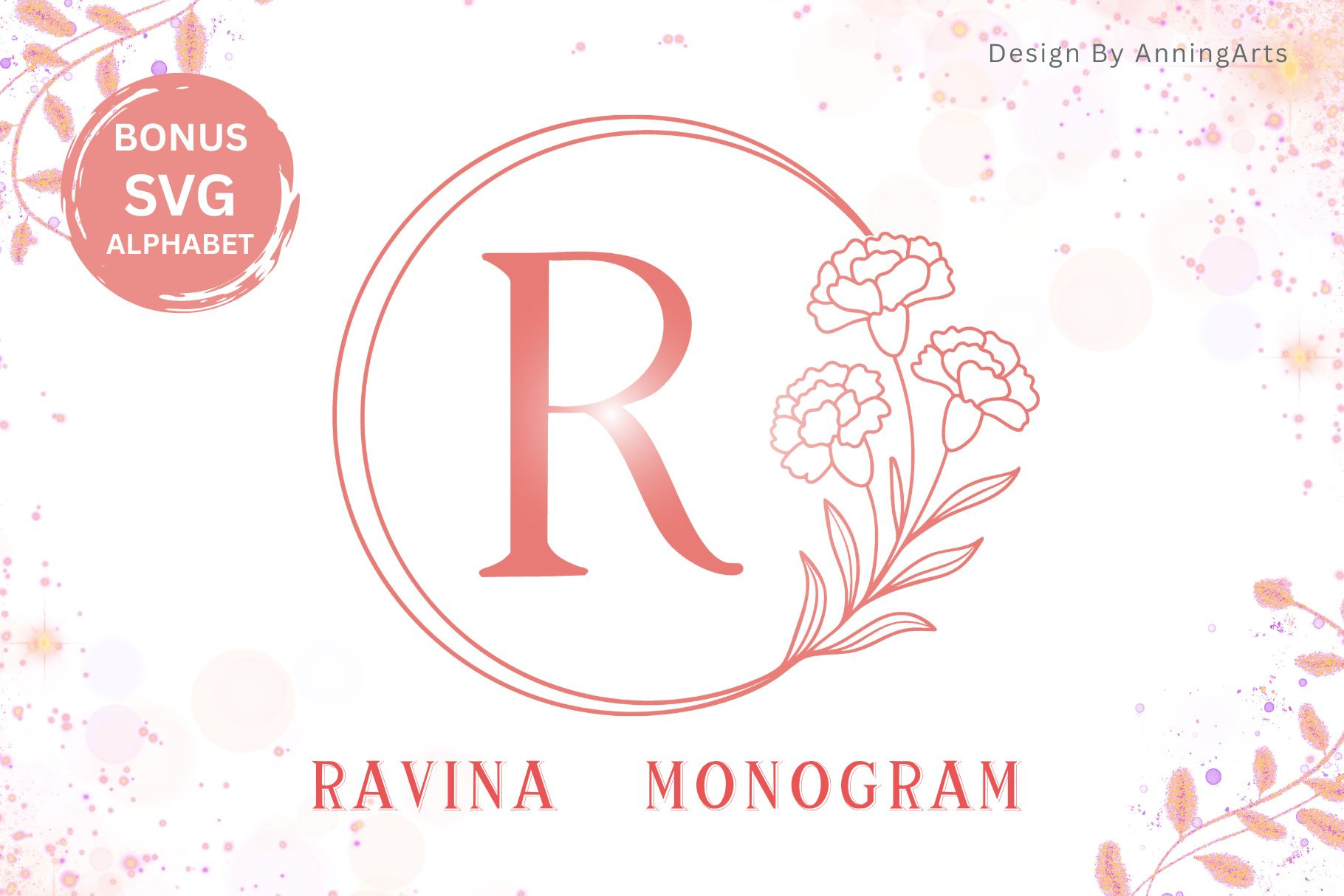
Ravina Monogram Font
Meet Ravina Monogram, an elegant floral serif font featuring beautifully designed monogram letters adorned with hand-drawn carnations. Perfect for wedding invitations, branding, logos, stationery, and more, this font brings a sophisticated and romantic vibe to your creative projects.
Each letter is designed with care to pair modern minimalism with soft botanical charm — ideal for brides-to-be, DIYers, and designers.
Perfect for: Wedding designs, feminine branding, baby showers, personalized gifts, and romantic prints.